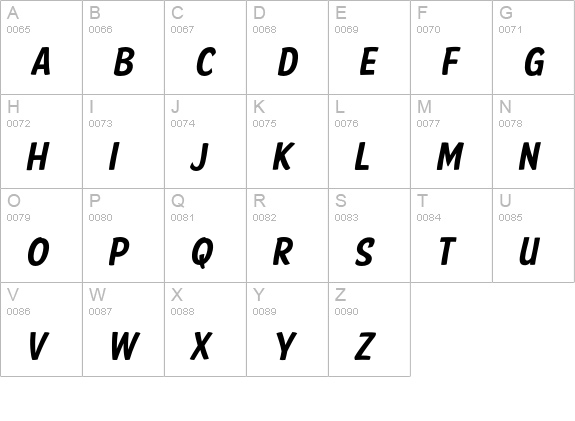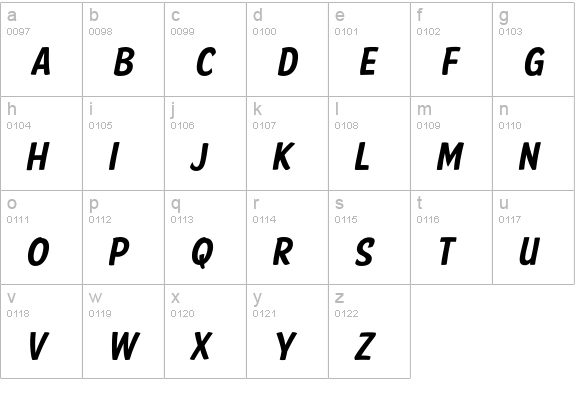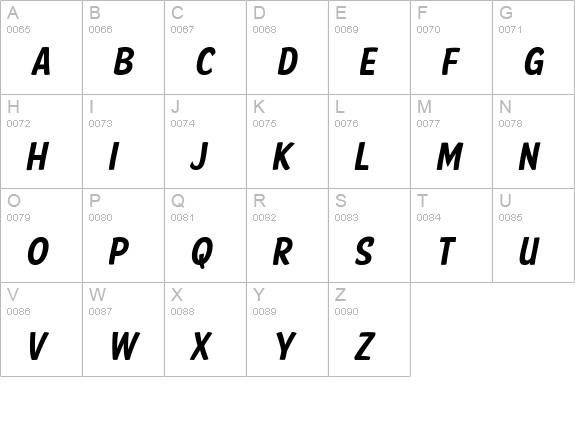
FTY SPEEDY CASUAL 001 NCV font is a stunning display typeface that combines a sense of speed and casualness in a unique and eye-catching way. With its bold and energetic letterforms, this font is perfect for projects that require a youthful and dynamic touch. The FTY SPEEDY CASUAL 001 NCV font effortlessly captures a sense of movement with its elongated and slightly slanted letterforms. Each character is carefully crafted to convey a sense of speed and excitement, making it an excellent choice for designs related to sports, racing, or any other high-energy themes. This font is freely available to download at FontsMarket.com, a trusted online platform dedicated to providing high-quality and diverse typefaces. With just a few clicks, you can easily access the FTY SPEEDY CASUAL 001 NCV font and incorporate it into your designs, whether it's for personal or commercial use. The versatility of the FTY SPEEDY CASUAL 001 NCV font is truly remarkable. From posters and flyers to logos and branding materials, this font can elevate any design and add a touch of youthful energy. Its bold and distinctive nature ensures that your message will stand out and capture the attention of viewers. Whether you're a graphic designer, marketer, or simply someone looking to add a touch of excitement to their projects, the FTY SPEEDY CASUAL 001 NCV font is a fantastic choice. Its modern and sleek design, combined with its freely available download at FontsMarket.com, makes it a valuable asset to any font collection. Don't miss out on the opportunity to enhance your designs with this captivating typeface.